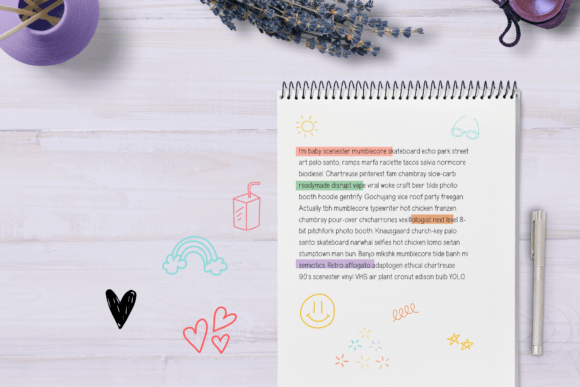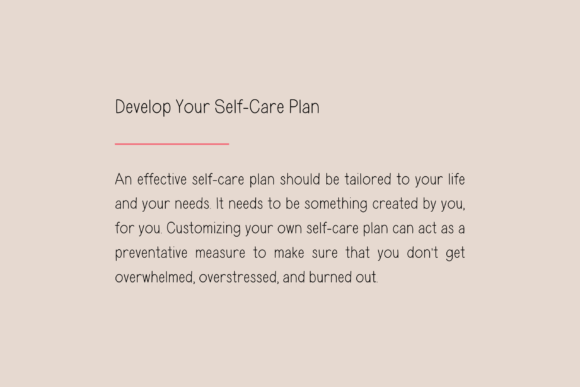
About Oh so Neat Font
Oh so Neat is a handwritten font perfect for digital notes, planners, logos, web design, notebooks, journals, labels, blogs, quotes, greeting cards, tea towels, apparel, pillows, mugs, toys, posters, baby clothing, picture books and so much more…basically anything that requires a casual, handwritten look!